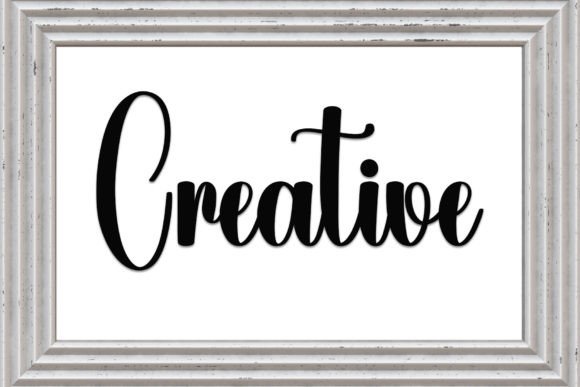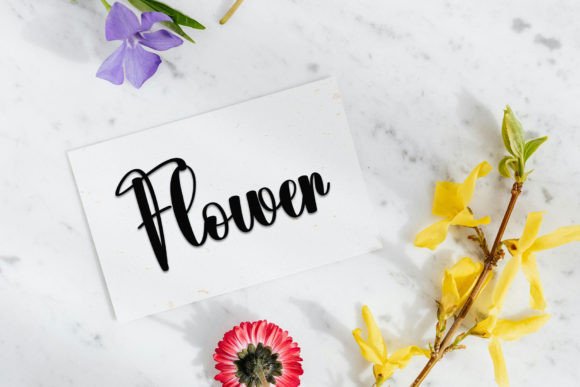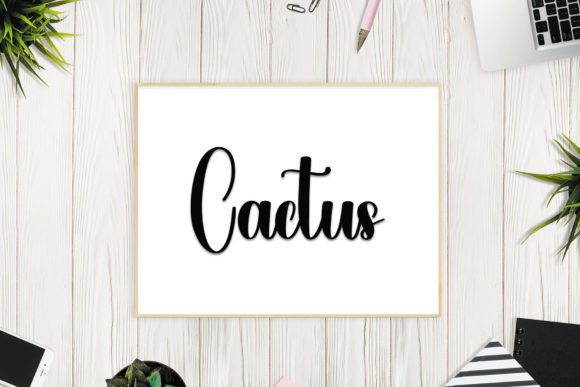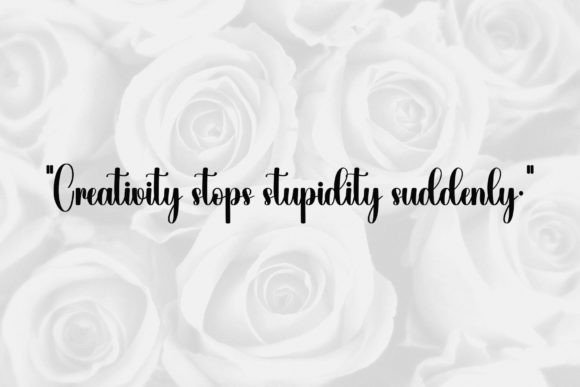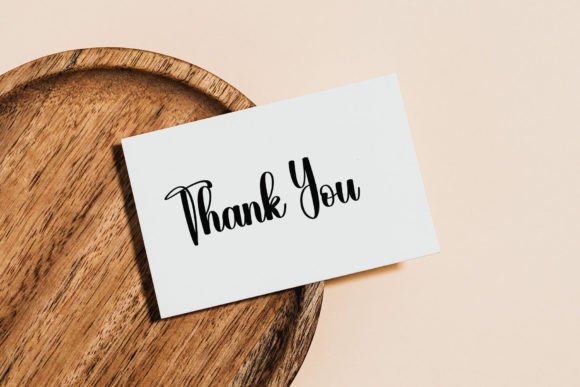
Where Creativity Meets Magic
Have you ever sat down with a blank page, staring at a blank slate, and suddenly, an idea strikes? The world around you melts away, and all that’s left is the thrill of bringing your vision to life. For designers, this moment is a familiar rush of adrenaline, and it’s what drives us to push the boundaries of our craft. One of the most essential tools in our arsenal is the right font – and that’s where the Disney Font comes in.
Designed to evoke the timeless charm of classic calligraphy, the Disney Font is a stunning display font that adds a touch of elegance to any project. With its balanced and varied forms, this font is perfect for designers who want to elevate their work to the next level. And with its PUA encoding, accessing all the amazing glyphs and ligatures is a breeze – giving you the freedom to create truly magical designs.
Disney Font Key Features
- Font Family: The Disney Font is a custom-designed font, often referred to as the ‘Disney Script’ or ‘Disney Font’, and it’s a part of the larger family of fonts known as ‘DINOT.’ However, the exact font family name is not publicly available.
- Font Style: The font is a script style, often used for decorative purposes and for adding a touch of magic to various Disney projects.
- Unique Characteristics: The Disney Font is known for its distinctive, whimsical, and elegant appearance, with characteristics such as flowing connections between letters, subtle flourishes, and a sense of movement and energy.
Disney Font Review
As a designer, I was excited to dive into the Disney Font, but my expectations were mixed. ✨ One thing that works well is the nostalgic feel it evokes. The font is a clear nod to classic Disney branding and instantly transports users to a world of childhood wonder.
Another aspect I appreciate is the variety of styles available. The Disney Font comes in a range of weights and widths, making it versatile for various design applications. Whether you’re creating a poster, logo, or menu, there’s a style to suit your needs. ✨
However, there are some limitations to consider. ⚠️ The font’s readability can be a concern, especially in smaller text sizes. The characters can appear crowded and difficult to decipher, which may affect the overall user experience.
In conclusion, the Disney Font is a unique and charming addition to any design project, but its limitations should be carefully considered. Overall, I’d give it 3.5 out of 5 stars.
Here are some pros and cons to summarize:
- ✨ Nostalgic feel and classic Disney branding
- ✨ Versatile range of styles and weights
- ⚠️ Readability concerns in smaller text sizes
Tips for Getting the Most Out of the Disney Font
To get the most out of the Disney Font, try using it in combination with bold or italic styles to add emphasis.
Use the Disney Font for titles, headings, and other attention-grabbing text to add a touch of whimsy and fun.
The Disney Font is perfect for:
- Creating a retro or vintage feel.
- Designing children’s materials, such as coloring books and activity sheets.
- Adding a touch of whimsy to marketing materials, such as flyers and brochures.